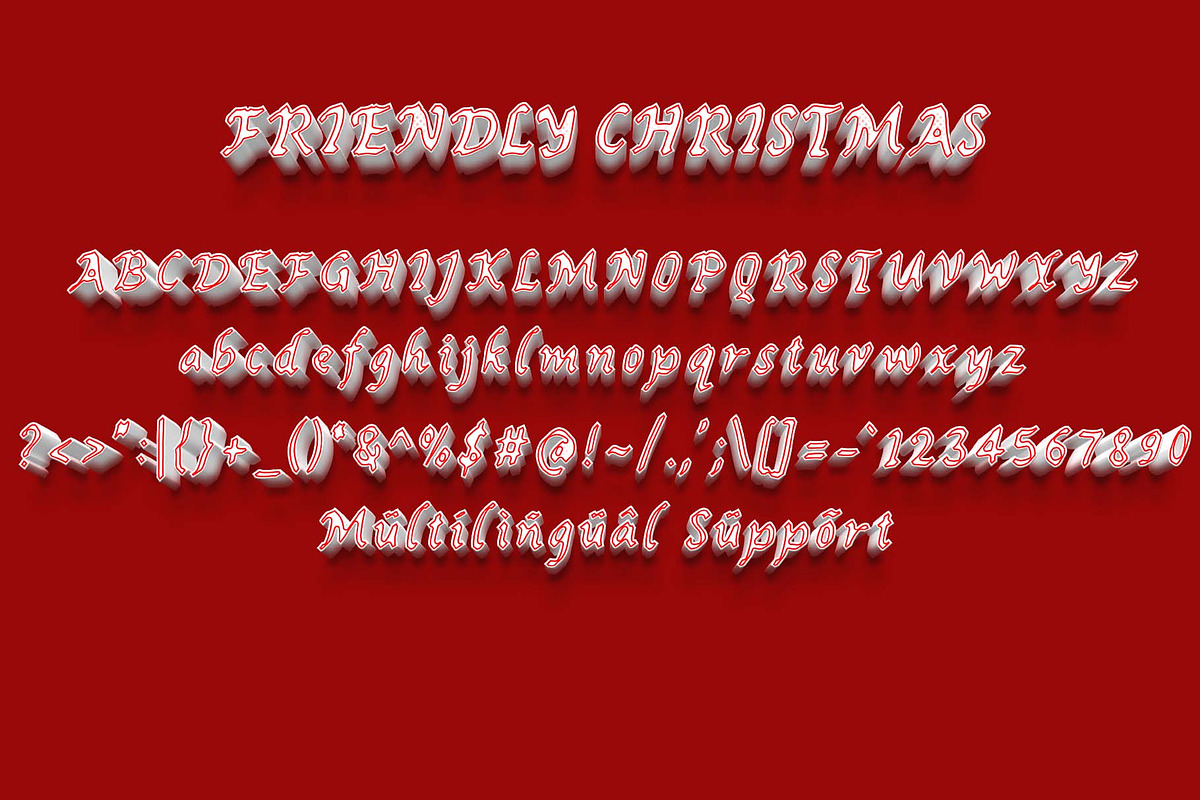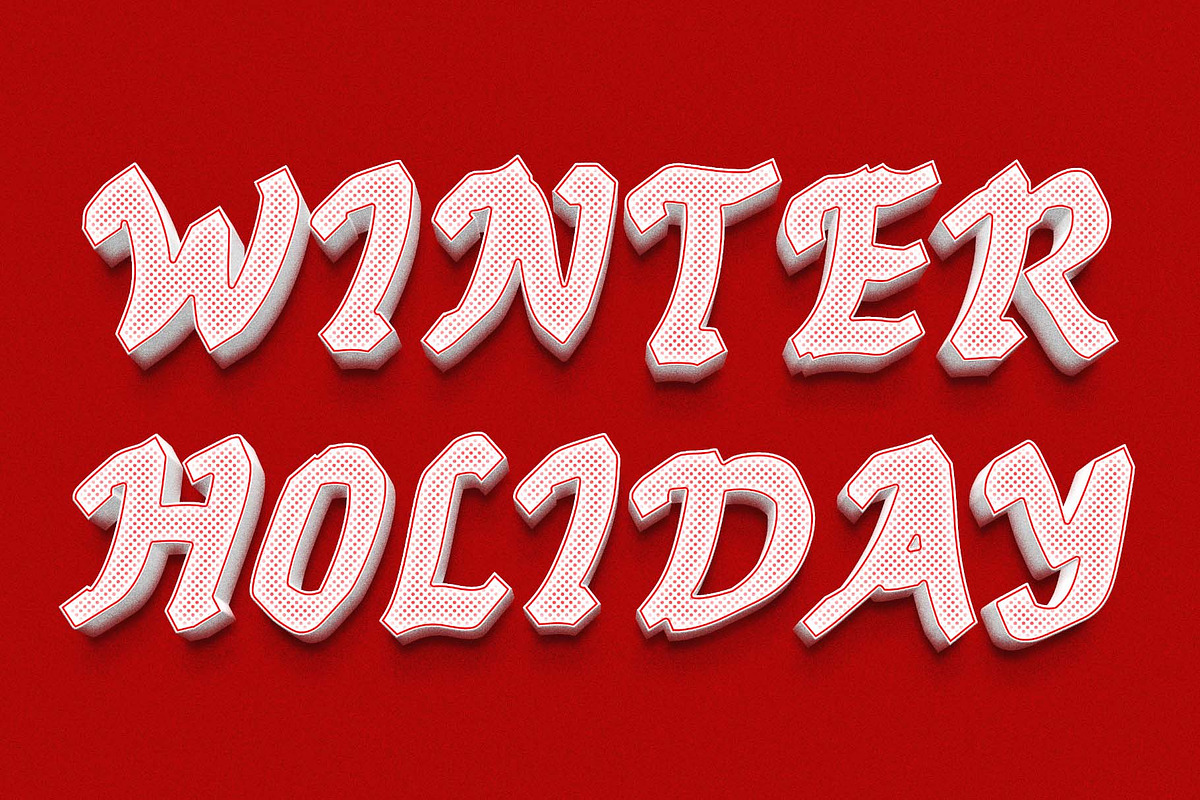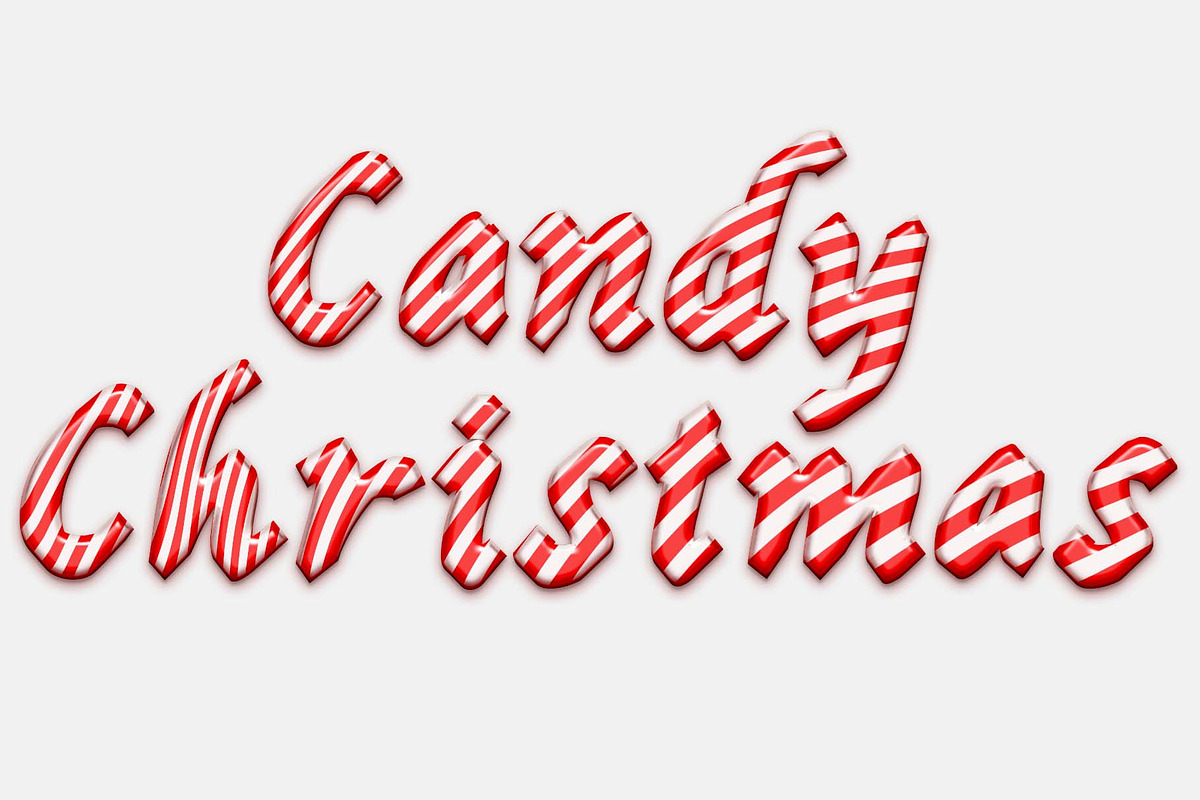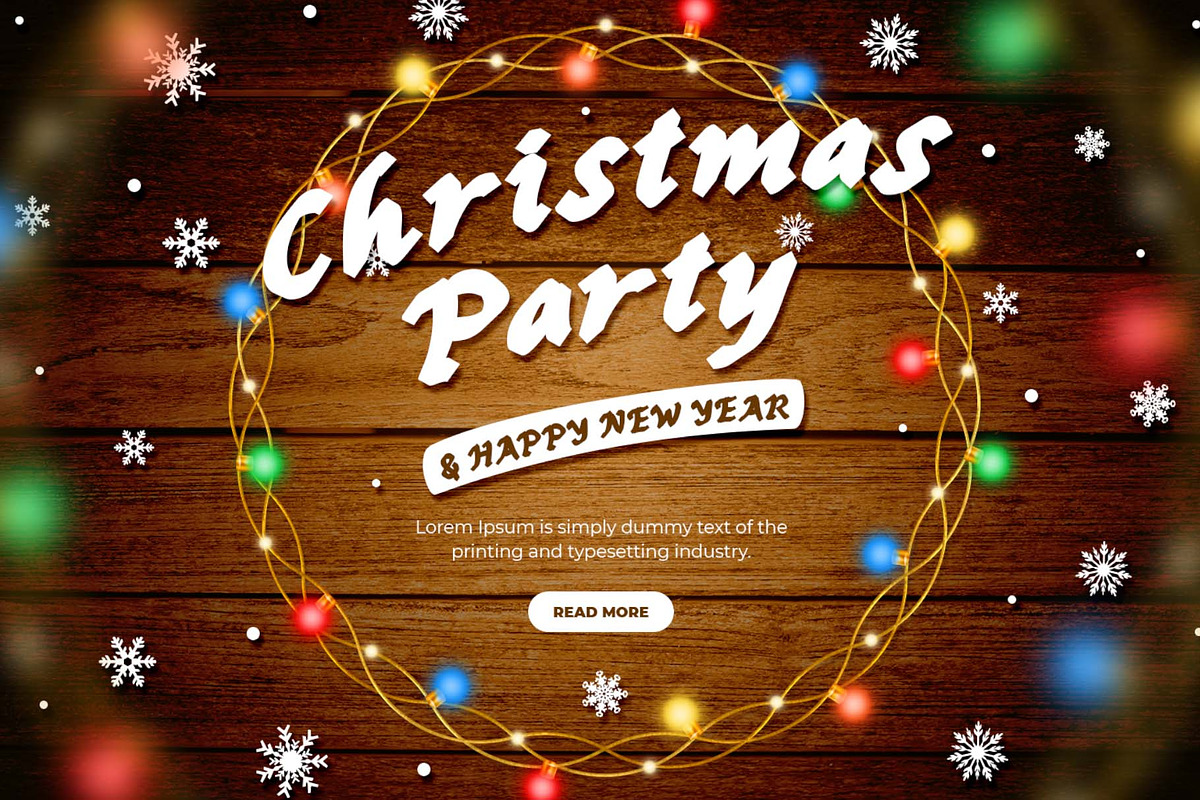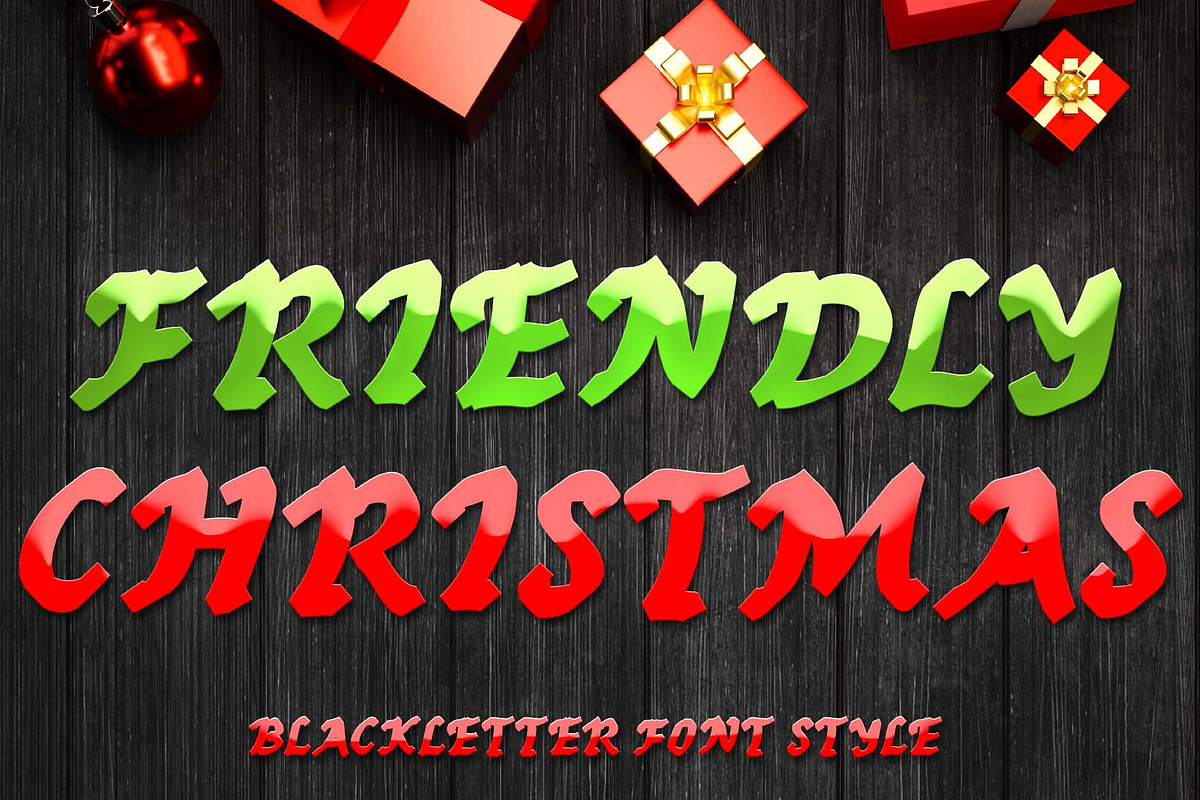
Friendly Christmas
"Friendly Christmas" is an elegant blackletter font. This font is equipped with uppercase, lowercase, numerals, punctuation, and multilingual support. Very suitable for Christmas, Halloween, invitations, book titles, posters, banners, stickers, tattoos, bras, and others.